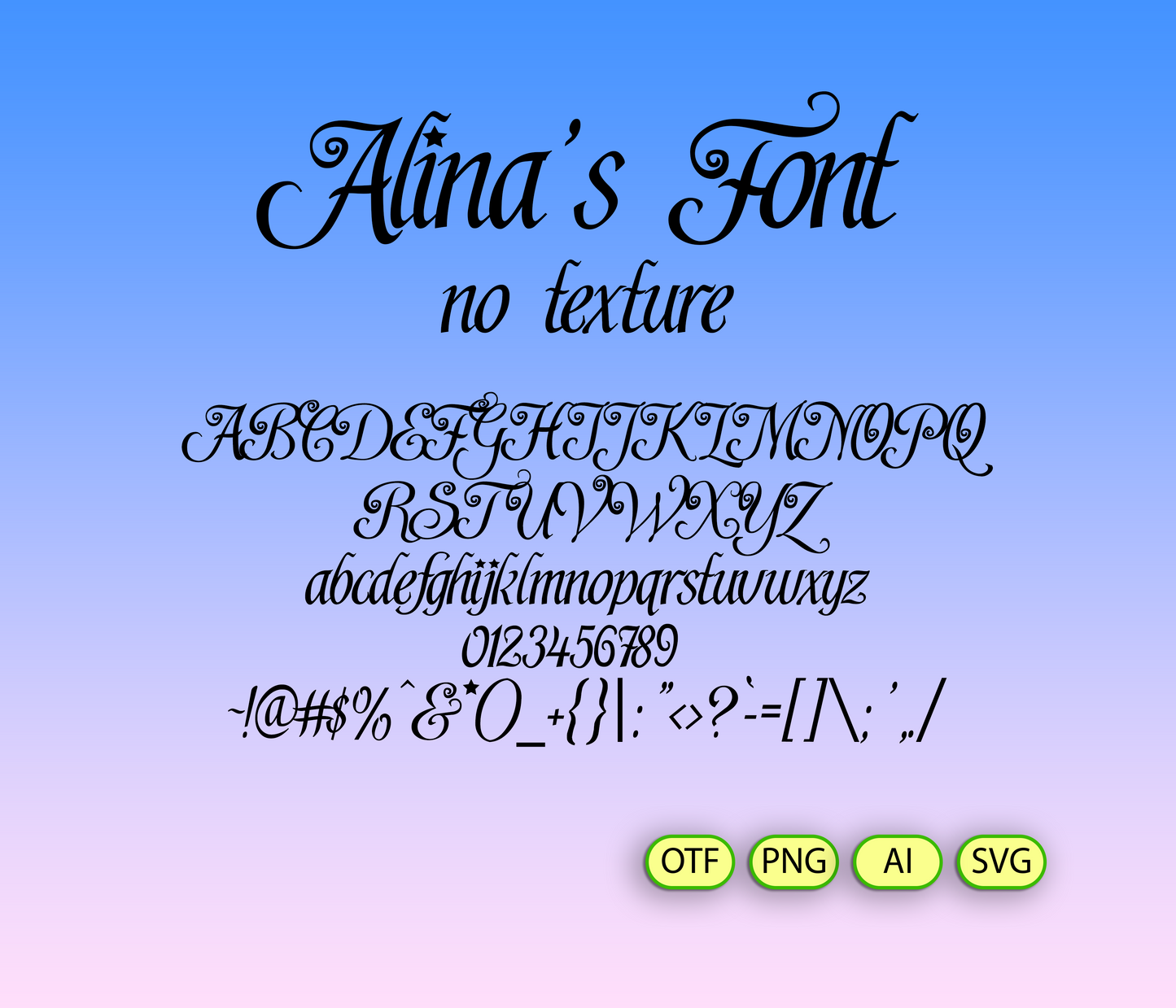
Magical Moon Warrior Font
Transform your designs with our enchanting Magical Moon Warrior font, capturing the essence of celestial guardians and mystical adventures. Perfect for fans of magical girl aesthetics and cosmic romance, this font brings sparkle and wonder to your creative projects.
Our Magical Moon Warrior font features elegant, flowing letterforms with cosmic accents that reflect the beauty of moonlit transformations. Ideal for:
- Event Promotions: Create magical invites, posters, banners for cosmic-themed celebrations and anime conventions that capture the enchantment of celestial warriors
- Merchandise Design: Design spellbinding T-shirts, posters, accessories for fans of magical girl adventures and lunar-powered heroes
- Digital Media: Enhance websites, blogs, social media with starlit headers and graphics that sparkle with cosmic energy
- Fan Content: Perfect for fan art, cosplay props, and magical girl-inspired creative projects that need that authentic sparkle
- Personal Projects: Ideal for scrapbooking, DIY crafts, and celestial-themed decorations that bring magic to your everyday life
Our font celebrates the wonder of magical girl adventures, bringing cosmic charm to every design. Whether creating fan materials, designing merchandise, or adding sparkle to personal projects, this font captures the spirit of love and justice in the name of the moon.
Sailor Moon Font